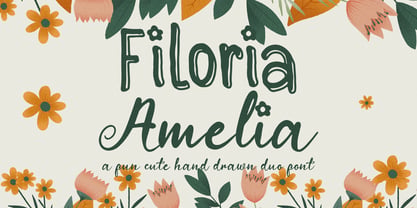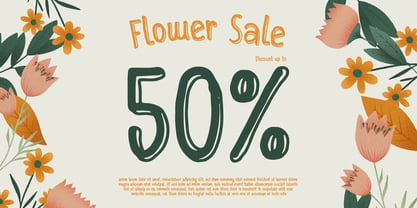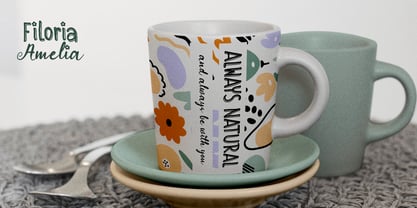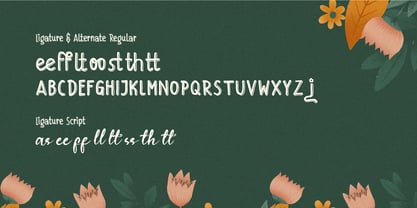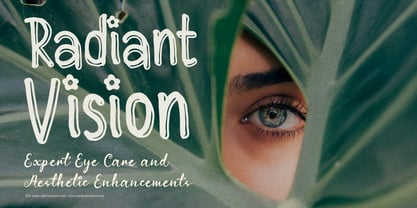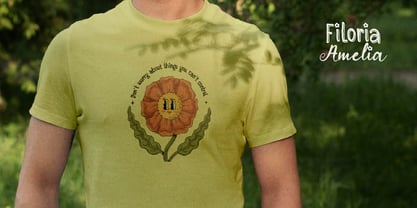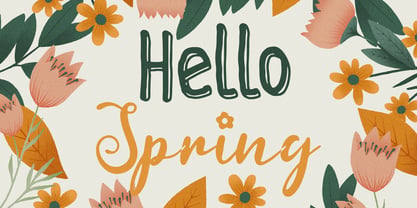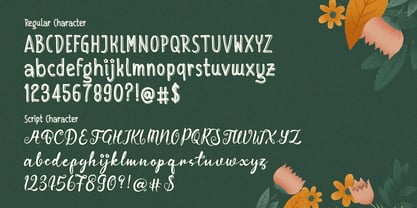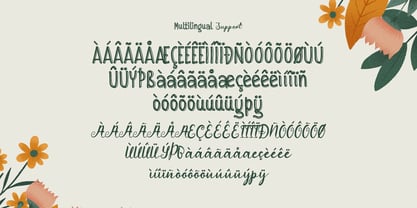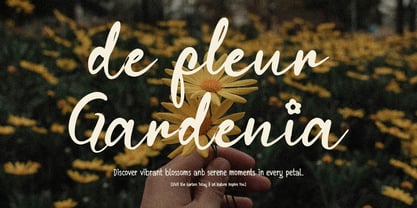
Filoria Amelia
by Denustudio
The Filoria Amelia Font Family was designed by Dede Nugraha and published by Denustudio. Filoria Amelia contains 1 styles.
Filoria Amelia | Cute Hand Drawn Duo Font, from Denustudios, suitable for any projects such as: logos, branding projects, homeware designs, product packaging, mugs, quotes, posters, shopping bags, t-shirts, book covers, name card, invitation cards, greeting cards, label, photography, watermark, special events, and all your other lovely projects that need a Cute Hand Drawn Duo Font taste.
• Regular and Italic
• Standard glyphs
• Alternate and Ligature
• Fonts include multilingual support